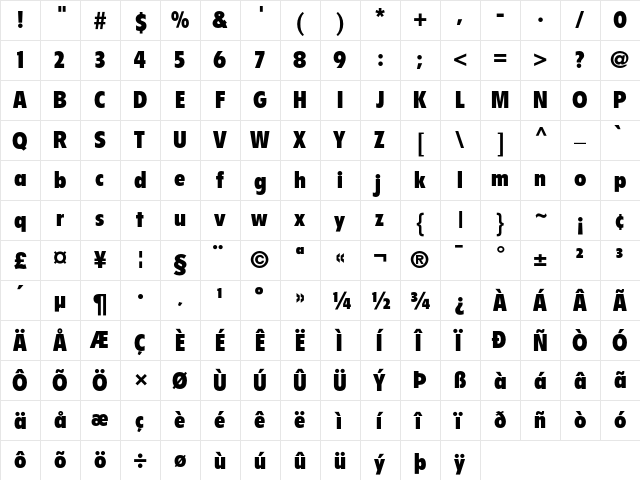
Flyer Black Condensed
Design Context for Flyer Typeface
Flyer takes a measured approach to typography — its balanced proportions and neutral character make it a reliable workhorse for both digital and print work. The condensed width makes it efficient for tight spaces without sacrificing legibility.